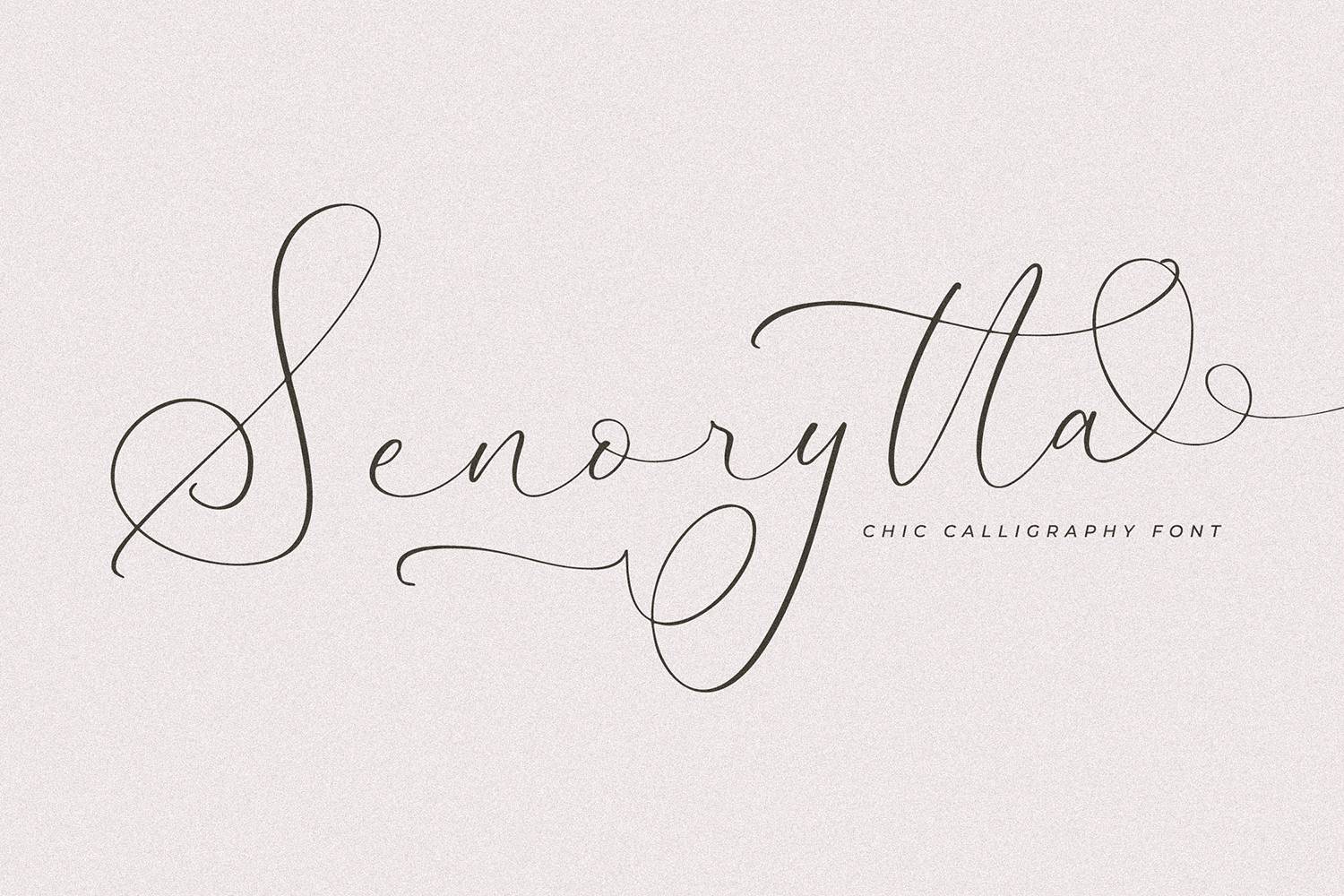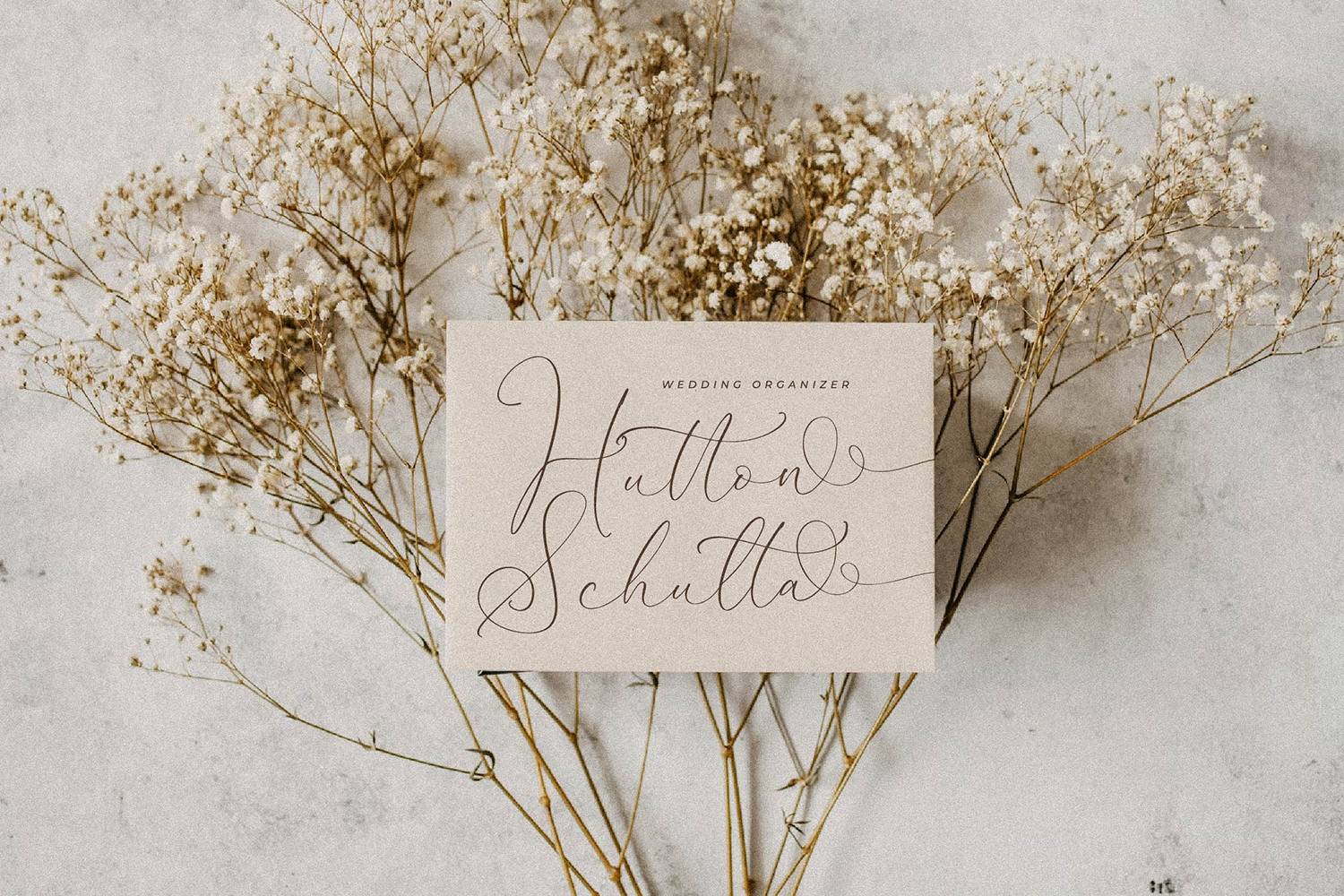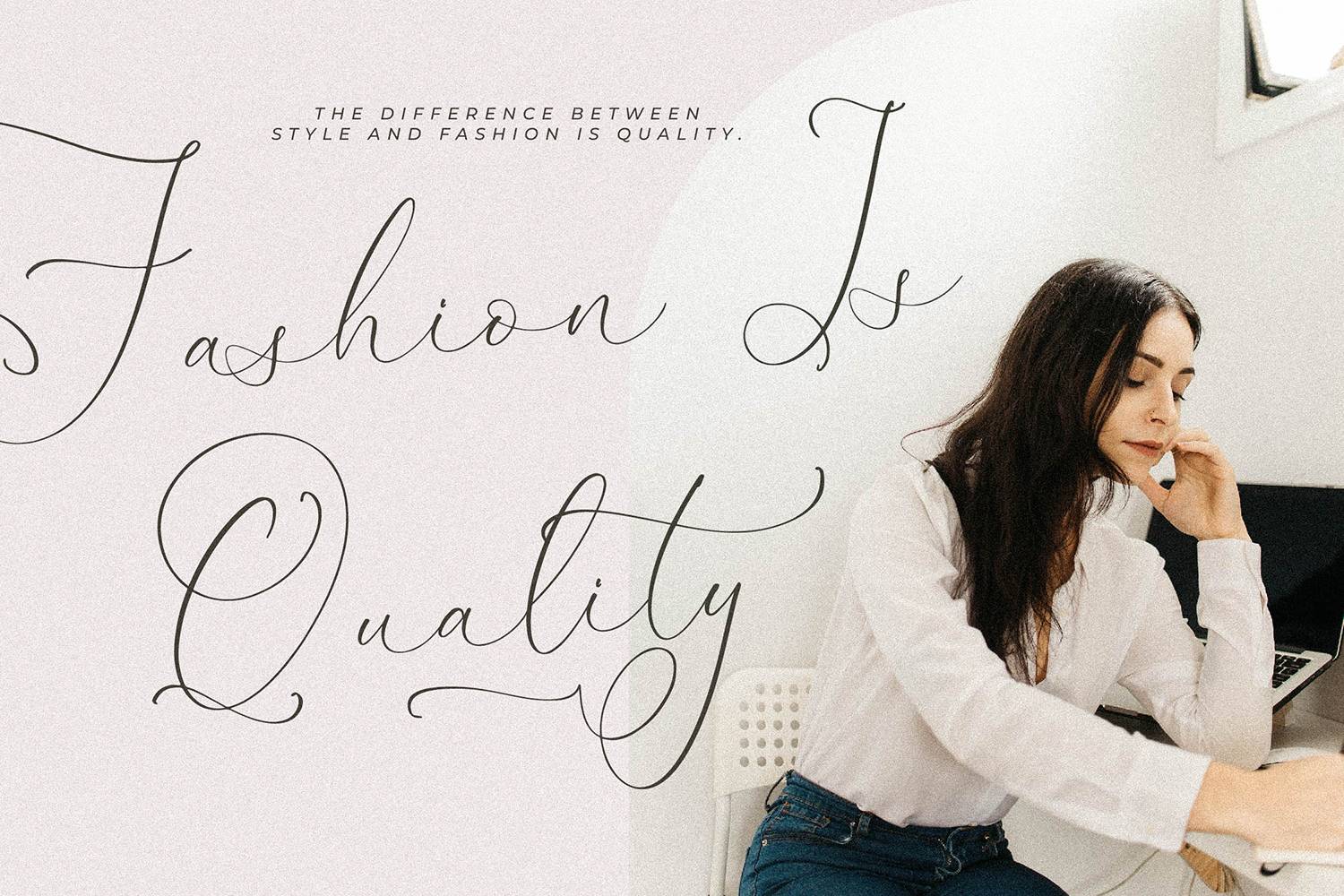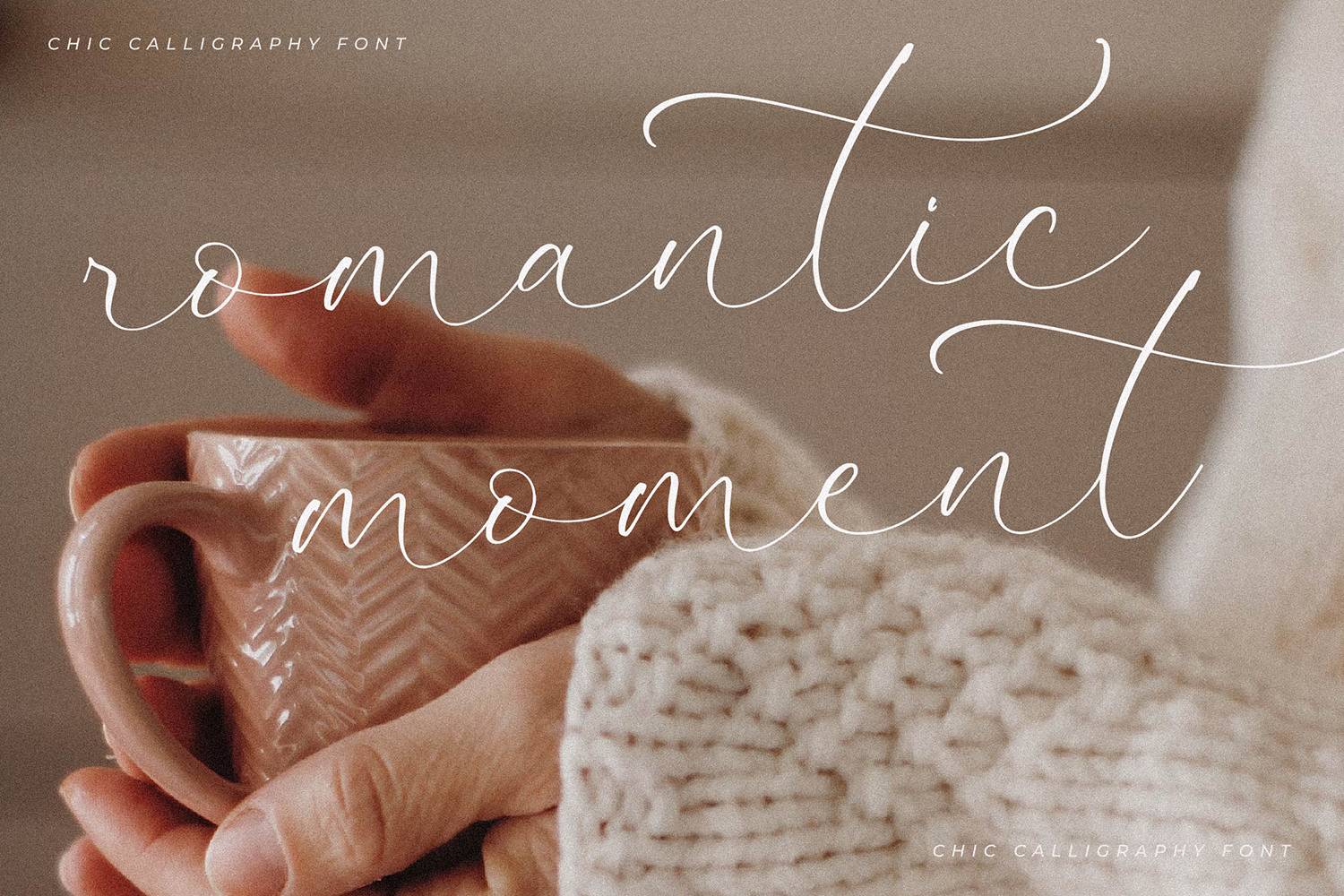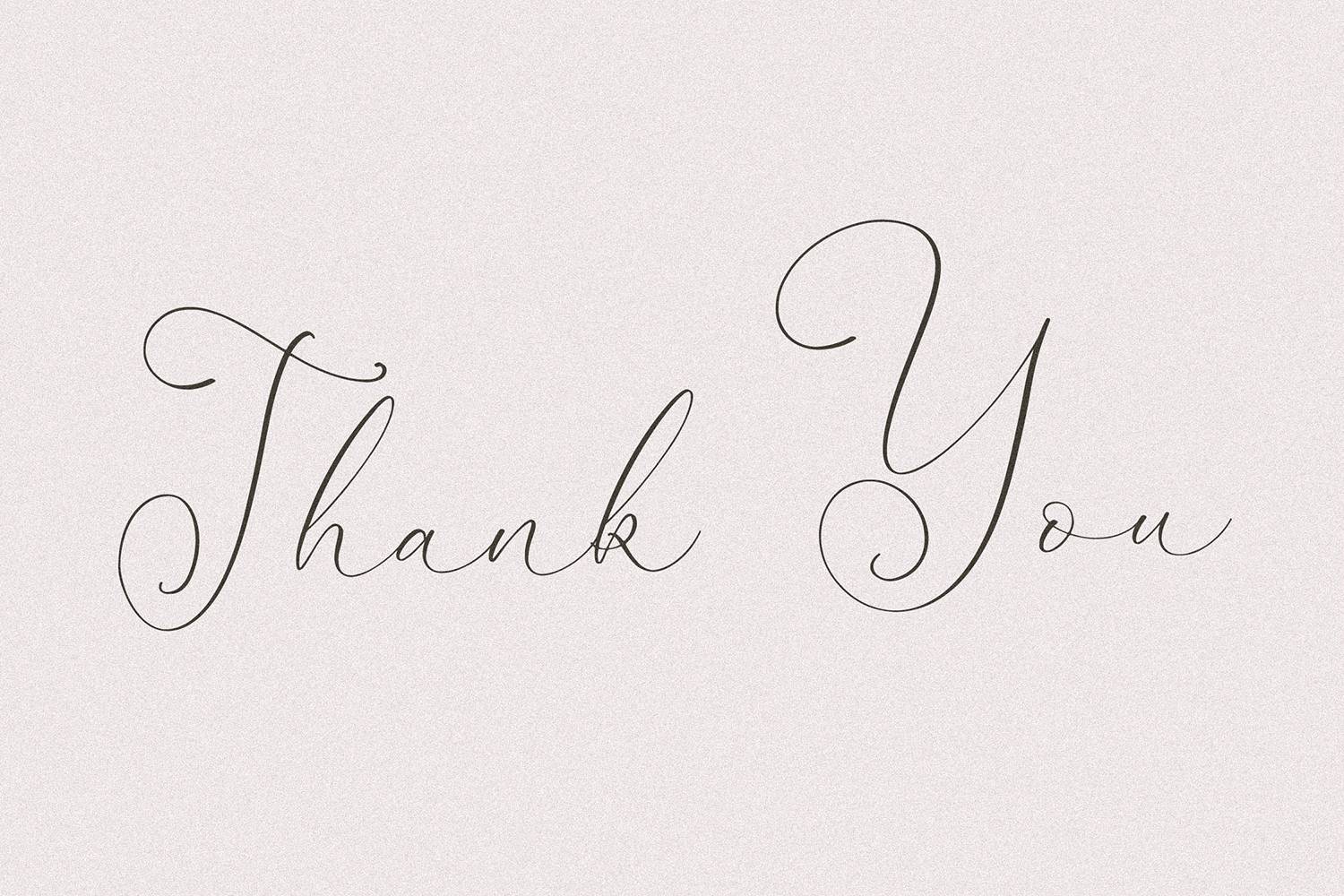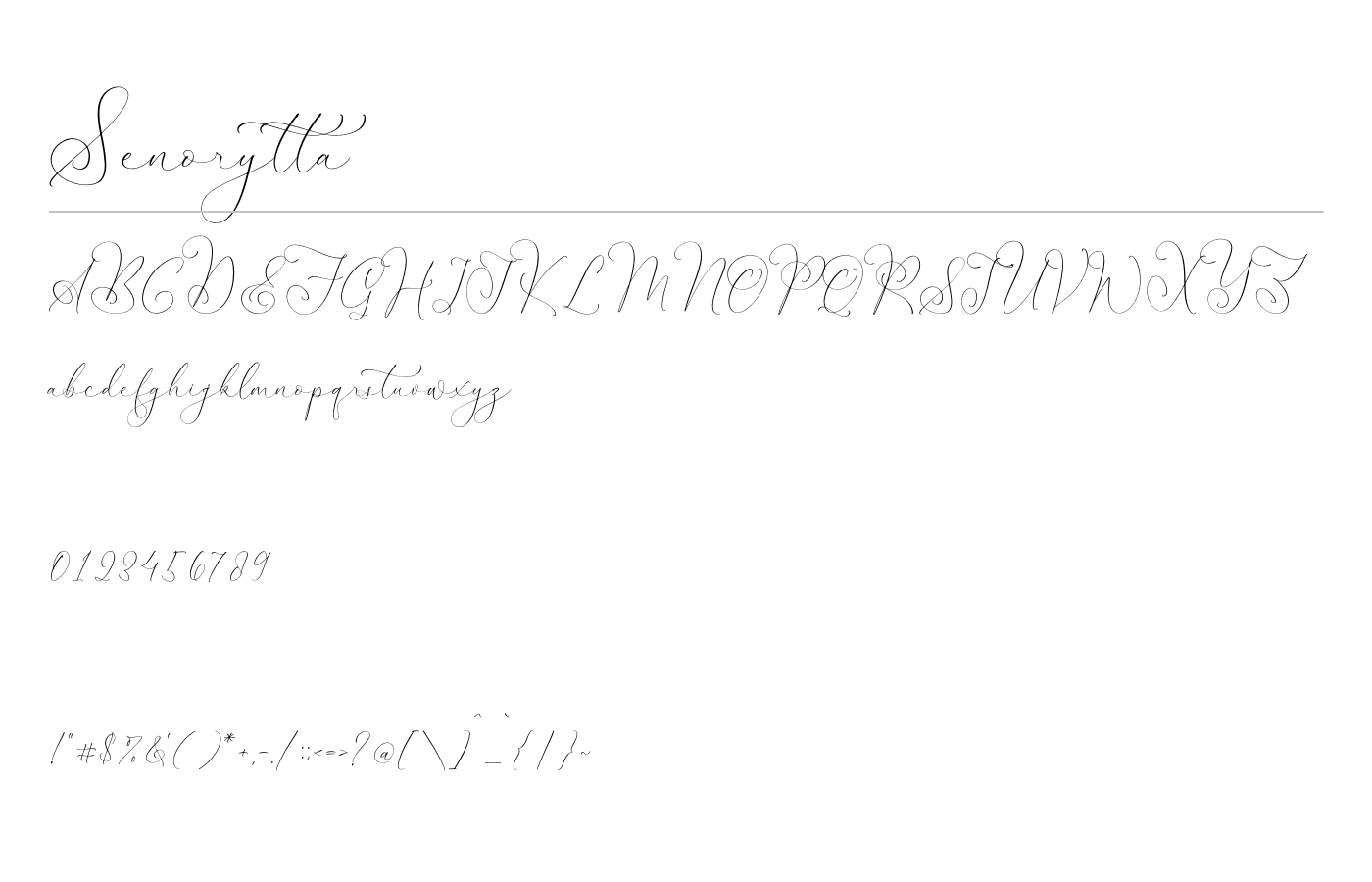
Senorytta is an elegant and delicate script font featuring thin, flowing lines and graceful swashes that evoke a sense of sophistication and romance. Its highly decorative uppercase letters with intricate curls contrast beautifully with the slender, refined lowercase characters, making it ideal for luxury branding, wedding invitations, and feminine editorial projects. This font works best in display settings where its ornamental style can shine, adding a touch of artistry and charm to any design.
Senorytta Font